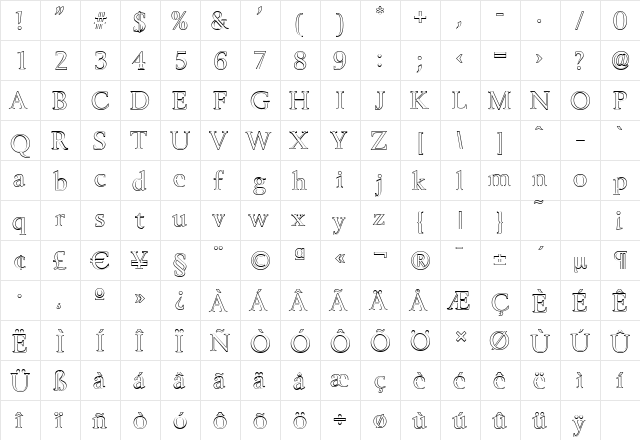
BelfastOutline Regular Font Preview
BelfastOutline Regular
Design Context for BelfastOutline Typeface
BelfastOutline is built around its visual character rather than neutral utility — its distinctive forms are designed to make an impression at display sizes.
Font Pairing: Pair with a clean neutral sans-serif for body copy to let BelfastOutline's character lead without overwhelming the composition.
Pro Tip: Use BelfastOutline exclusively at display sizes — it was designed to be seen, not read at length. Let a neutral companion handle body copy.